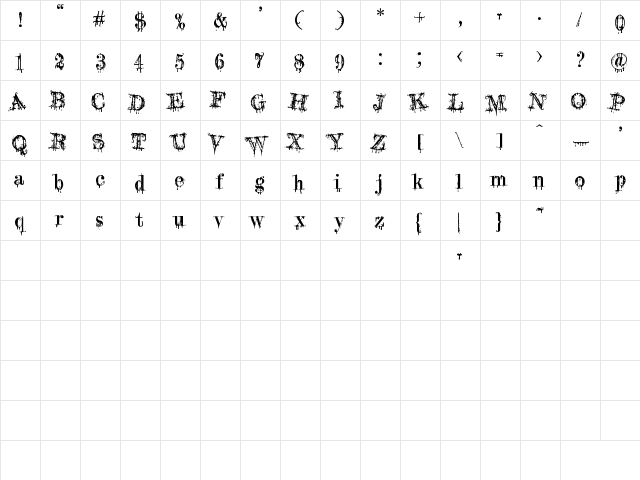
A Lolita Scorned Scorned
Design Context for A Lolita Scorned Typeface
A Lolita Scorned is a composed and adaptable typeface that performs quietly and consistently across a wide range of design contexts.